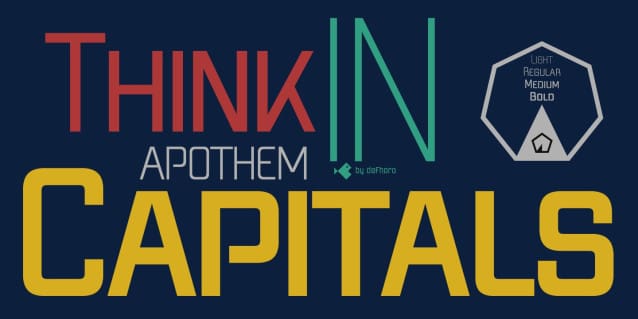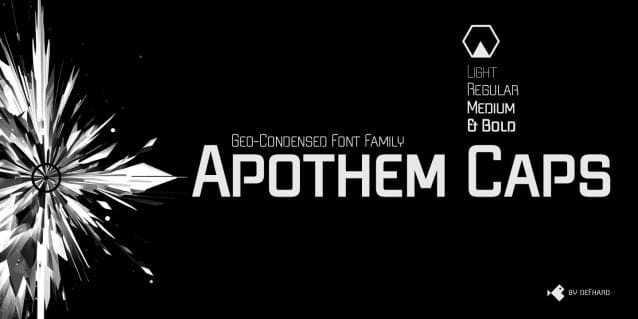
Apothem Caps Font
Apothem Caps Font a futuristic geometric typeface with condensed proportion and characterized by exceptional legibility and intrinsic elegance.
Creating Apothem Caps was no easy task; it required a meticulous process, filled with patience and an unwavering passion for type design. This effort has resulted in a futuristic geometric typeface with condensed proportion and characterized by exceptional legibility and intrinsic elegance.
Apothem Caps is available in four carefully designed weights: Light, Regular, Medium and Bold, providing unique flexibility to meet the diverse needs of designers.
One of the most notable additions to the new ApothemCaps version is the inclusion of three sets of drop caps: Caps, Small Caps and Petite Caps, which significantly expands its possibilities of use.